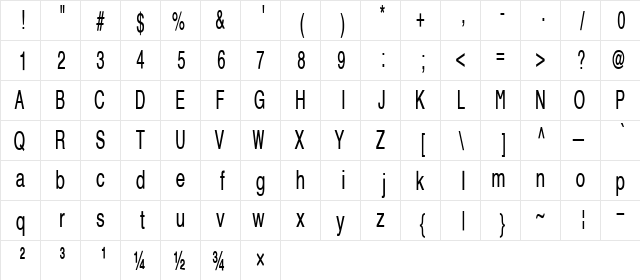
Regula Regular Font Preview
Regula Regular
Regula Regular Font Details
Design Context for Regula Typeface
Regula offers clean, dependable letterforms without strong stylistic allegiance, making it a practical choice for designers who need flexibility.
Pro Tip: Use Regula in both headline and body roles to test its range before committing to a single application.